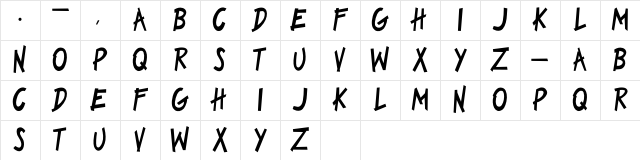
DILOVE Regular
Design Context for DILOVE Typeface
DILOVE is a composed and adaptable typeface that performs quietly and consistently across a wide range of design contexts.